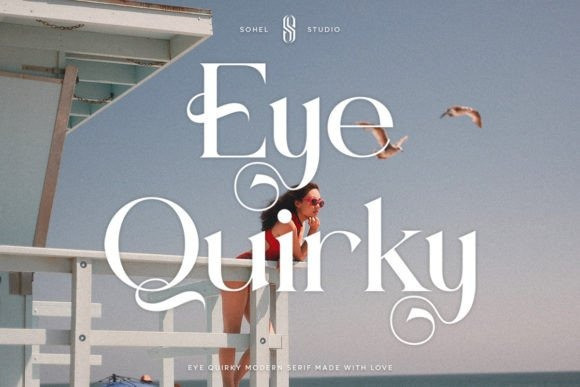
Eye Quirky Font
Eye Quirky Font is a Modern elegant serif typeface with a Unique alternative. This typeface is perfect for an elegant & luxury logo, classy editorial design, women’s magazine, fashion brand, cosmetic brand, fashion promotion, modern advertising design, invitation card, art quote, home decoration, book/cover titles, special events, Tote bag, T-shirt, advertising and much more.